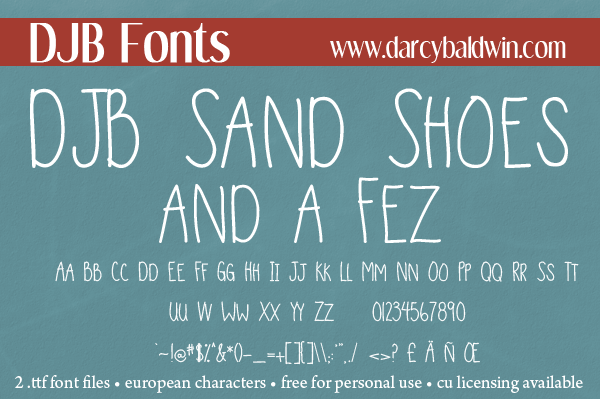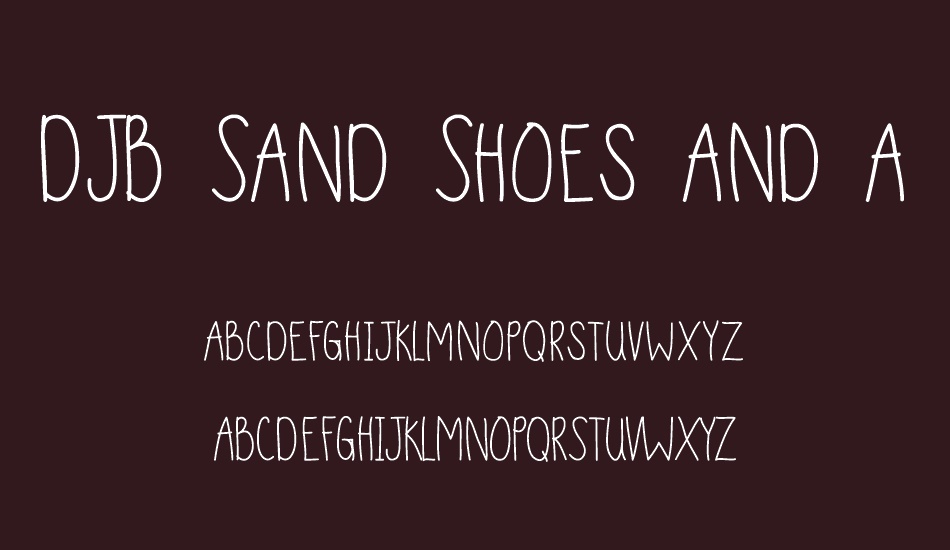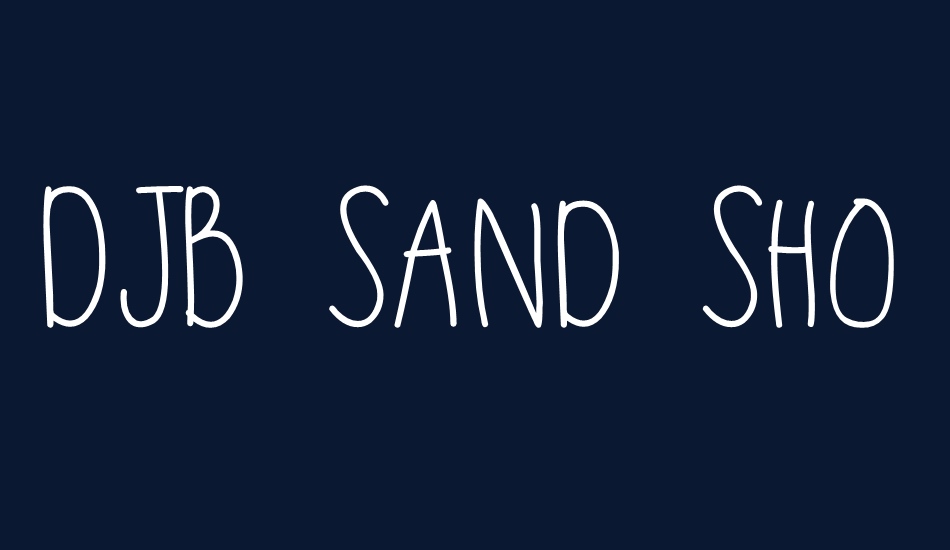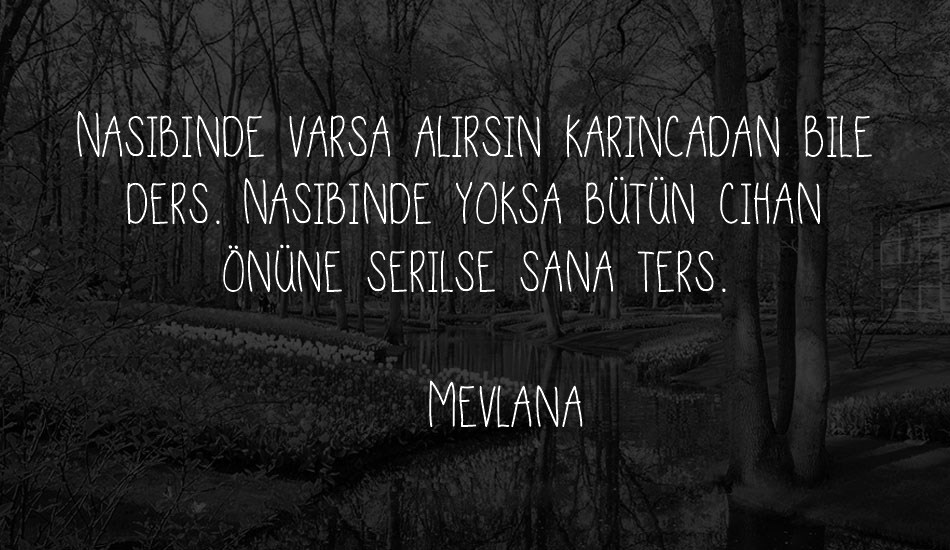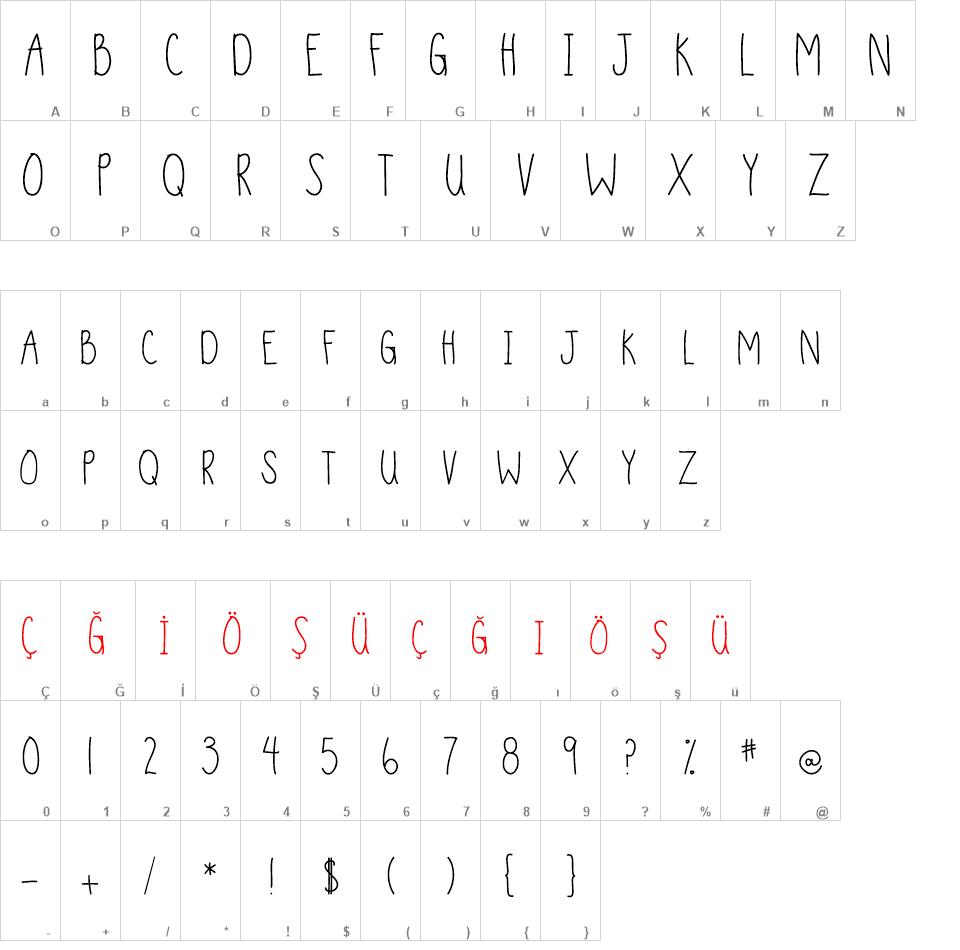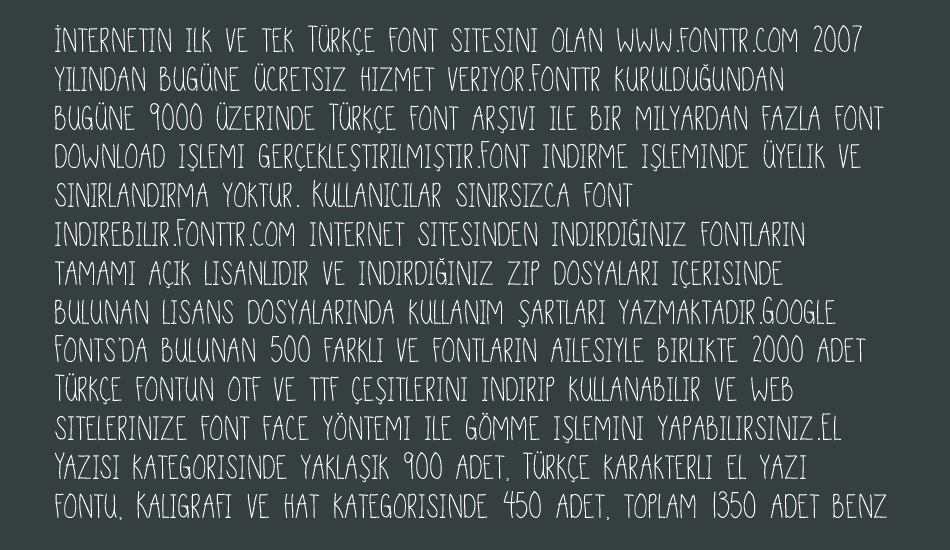
DJB Sand Shoes
This font is free for personal use and includes European language characters with a bold and a regular version. For my fellow Doctor Who fans.
DJB Sand Shoes and a Fez font